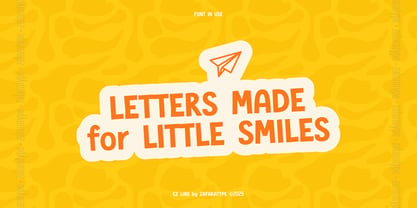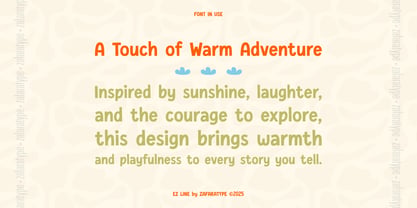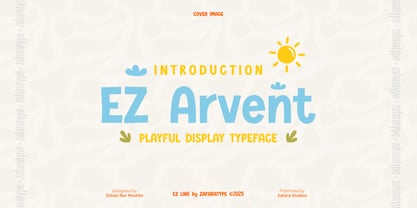
EZ Arvent
by Zafara Studios
The EZ Arvent Font Family was designed by Zohan Nur Muchlis and published by Zafara Studios. EZ Arvent contains 1 styles. More about this family
EZ Arvent is a fun and cheerful display font that captures the playful energy of retro cartoons and children’s books. With its quirky letterforms and bouncy rhythm, EZ Arvent brings a friendly, hand-crafted charm to any design. Perfect for logos, packaging, posters, comics, games, and educational materials. Wherever you want to add creativity and joy, EZ Arvent fits right in. The details: Uppercase & lowercase, Numbers & punctuation, Symbols & accents, Multilingual support
Designers: Zohan Nur Muchlis
Foundry: Zafara Studios